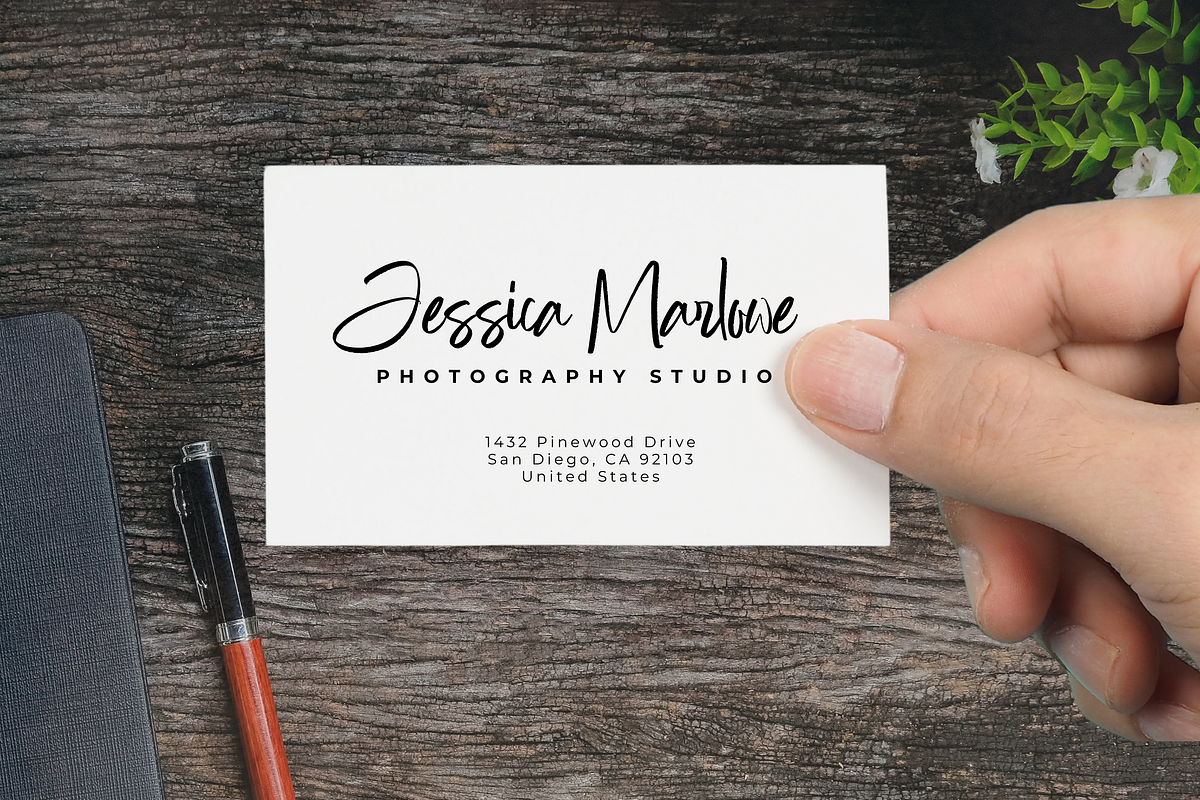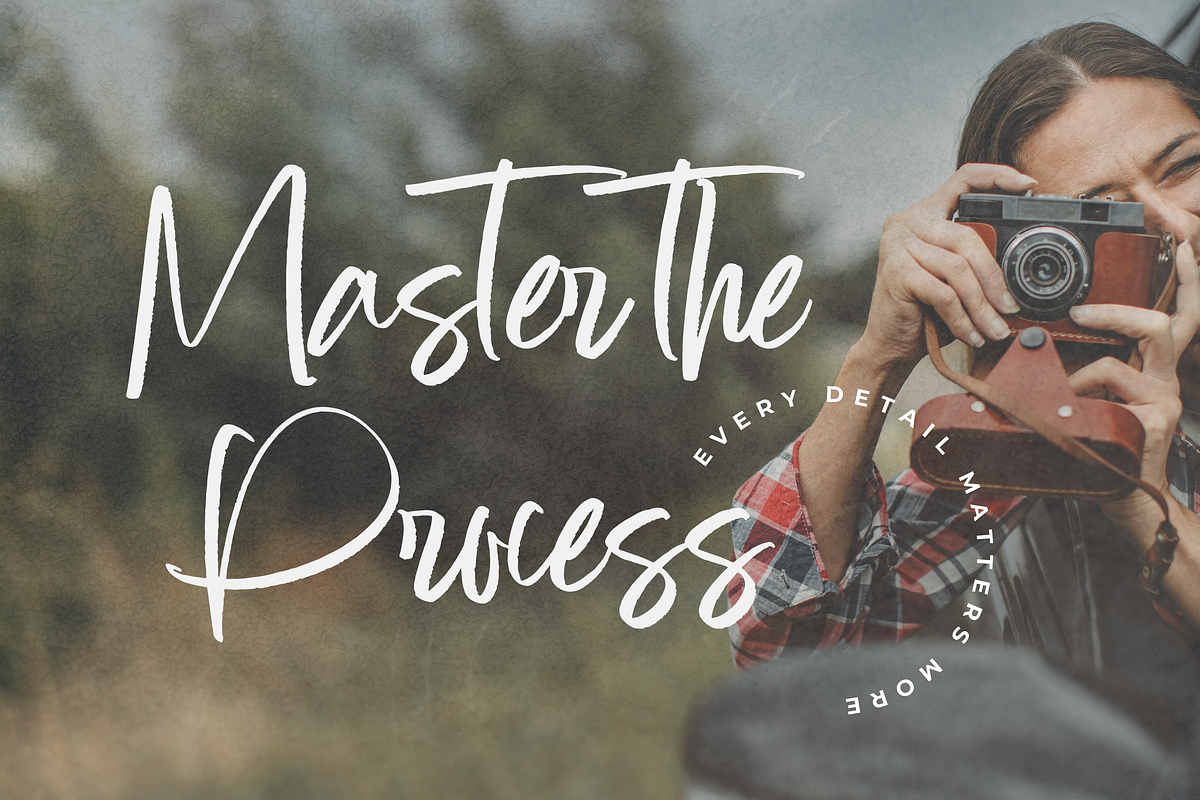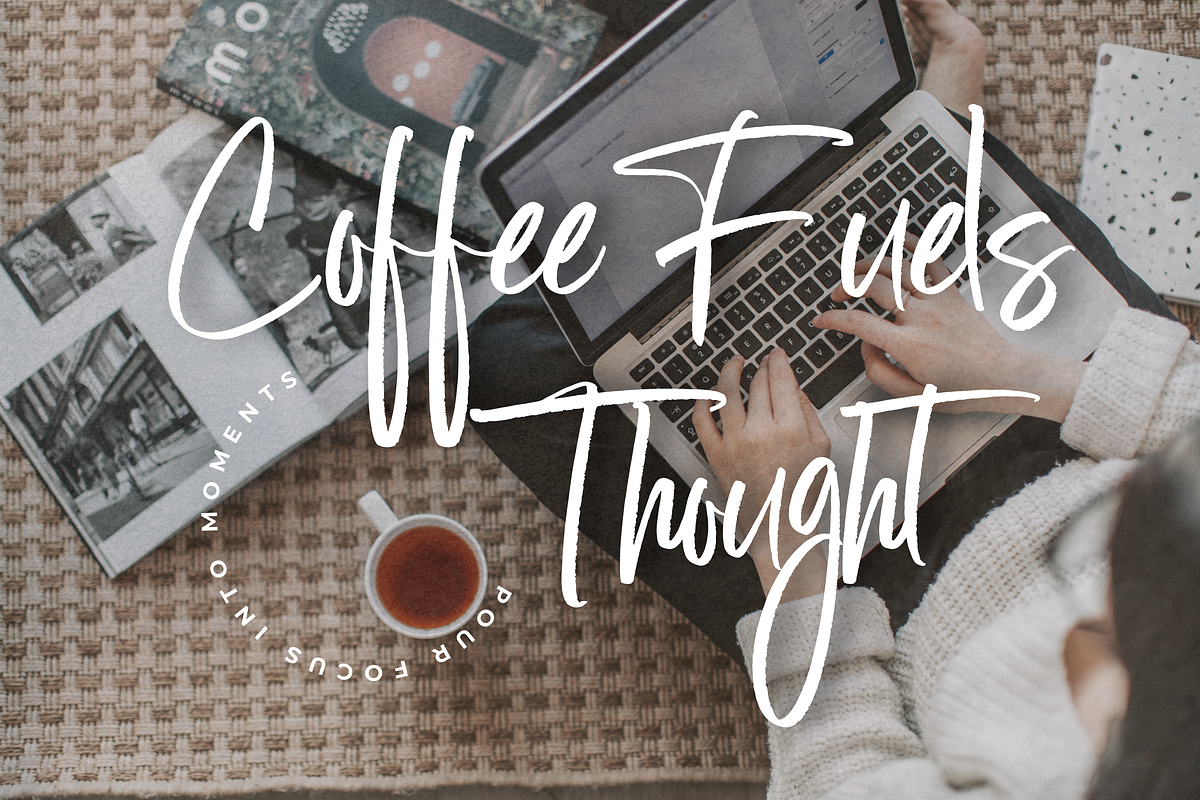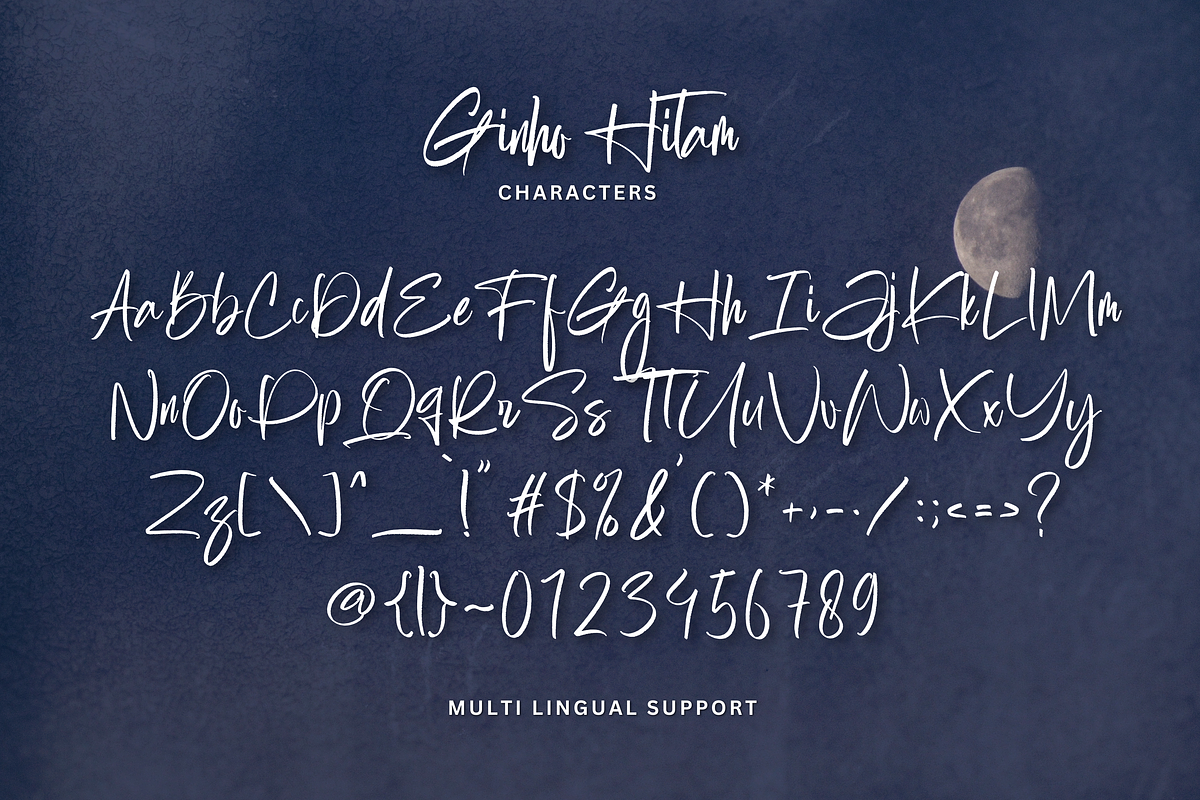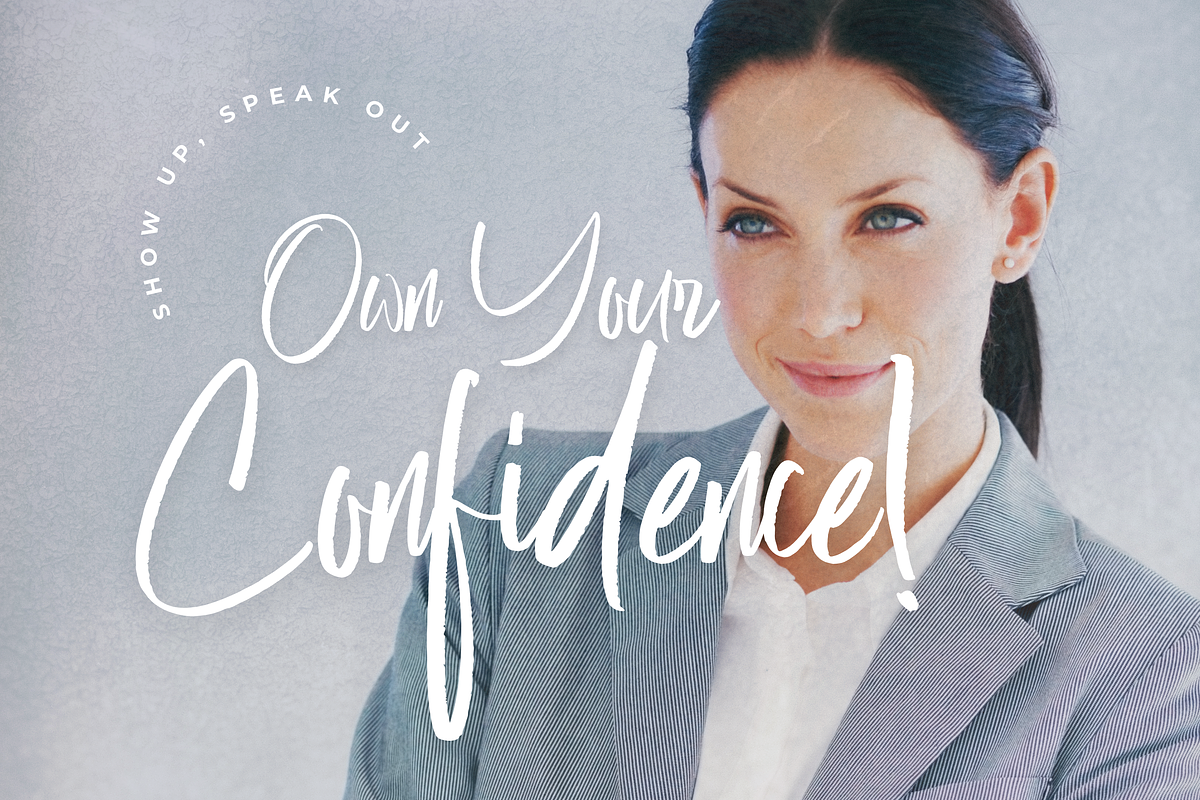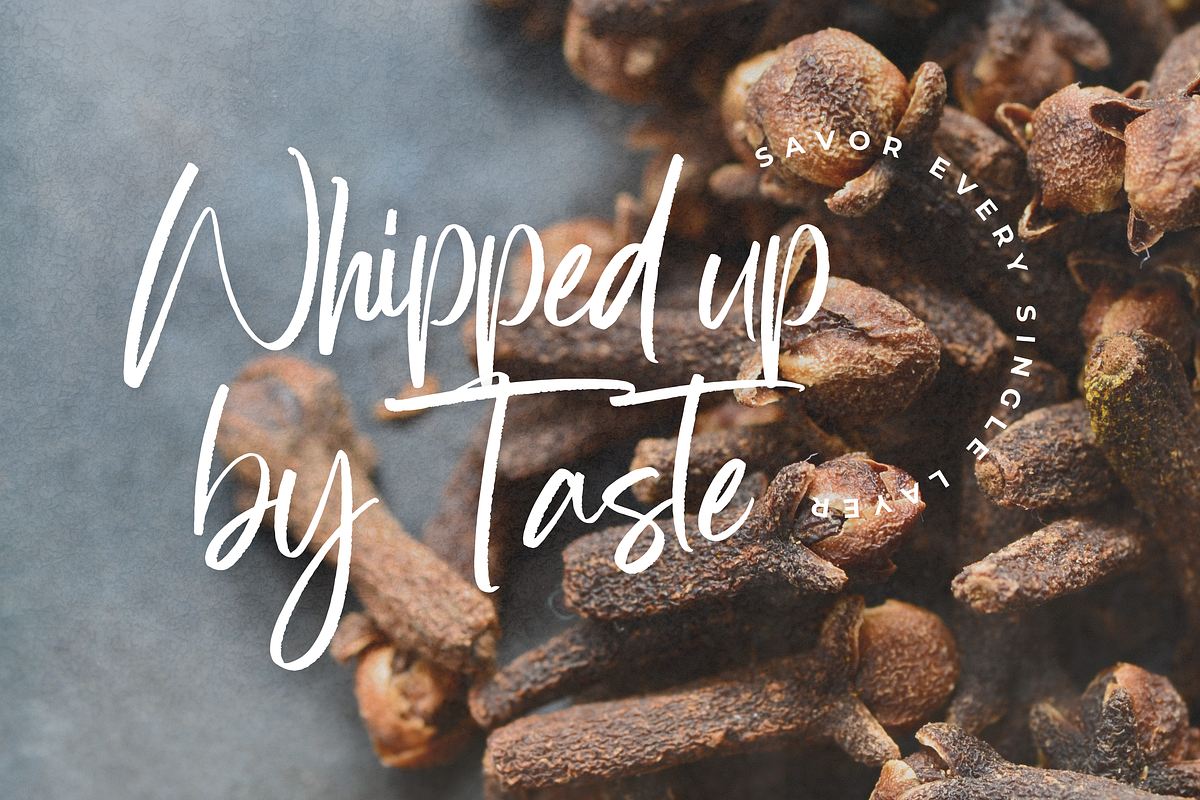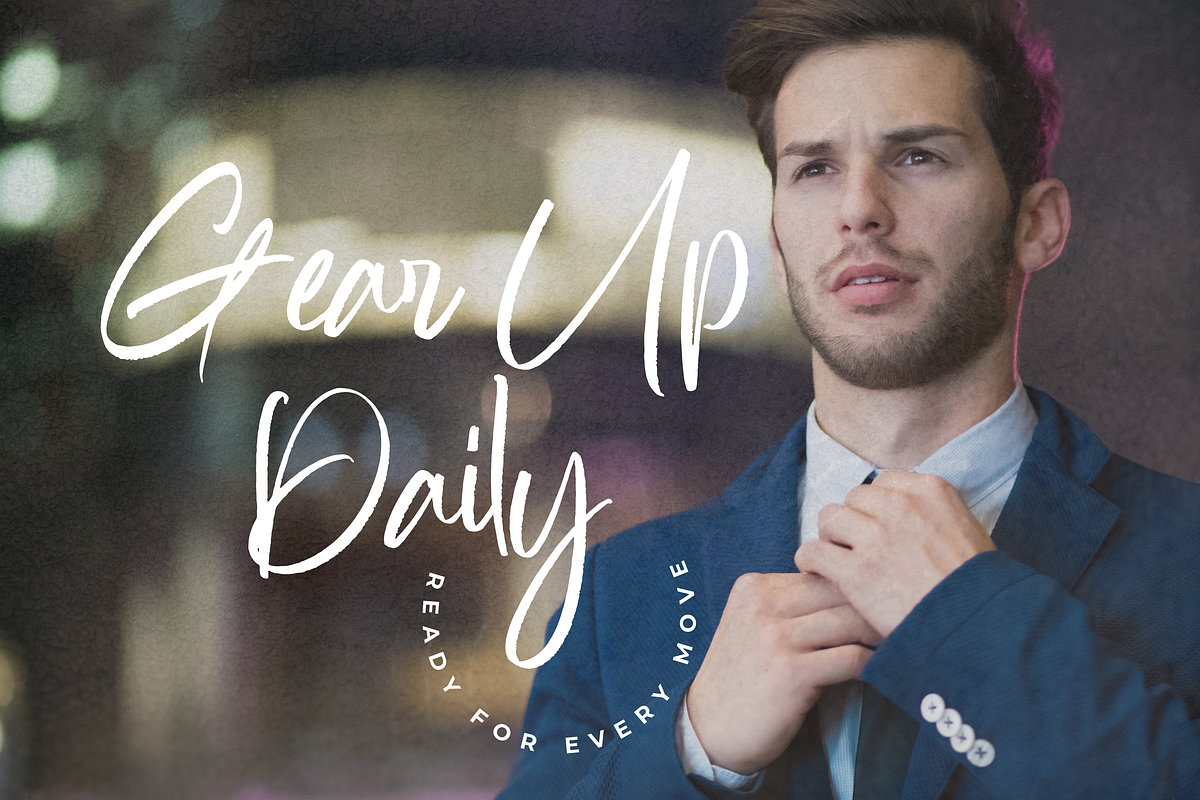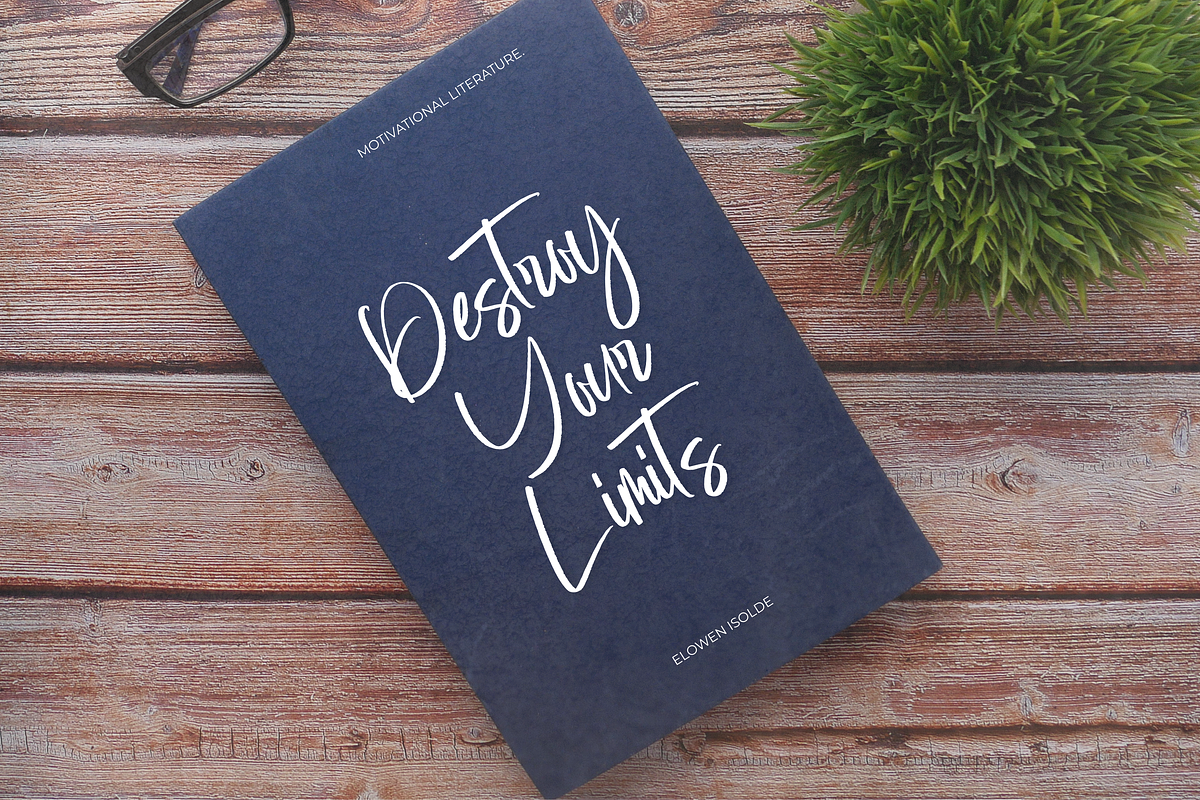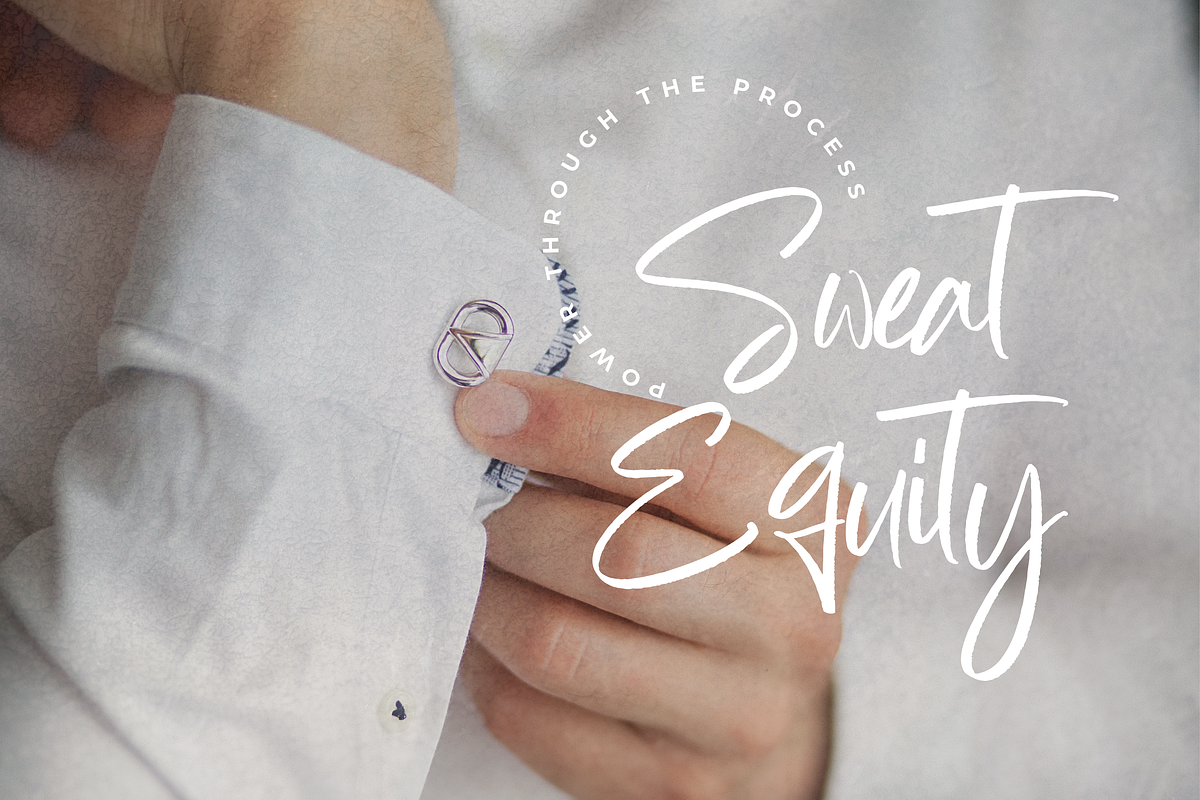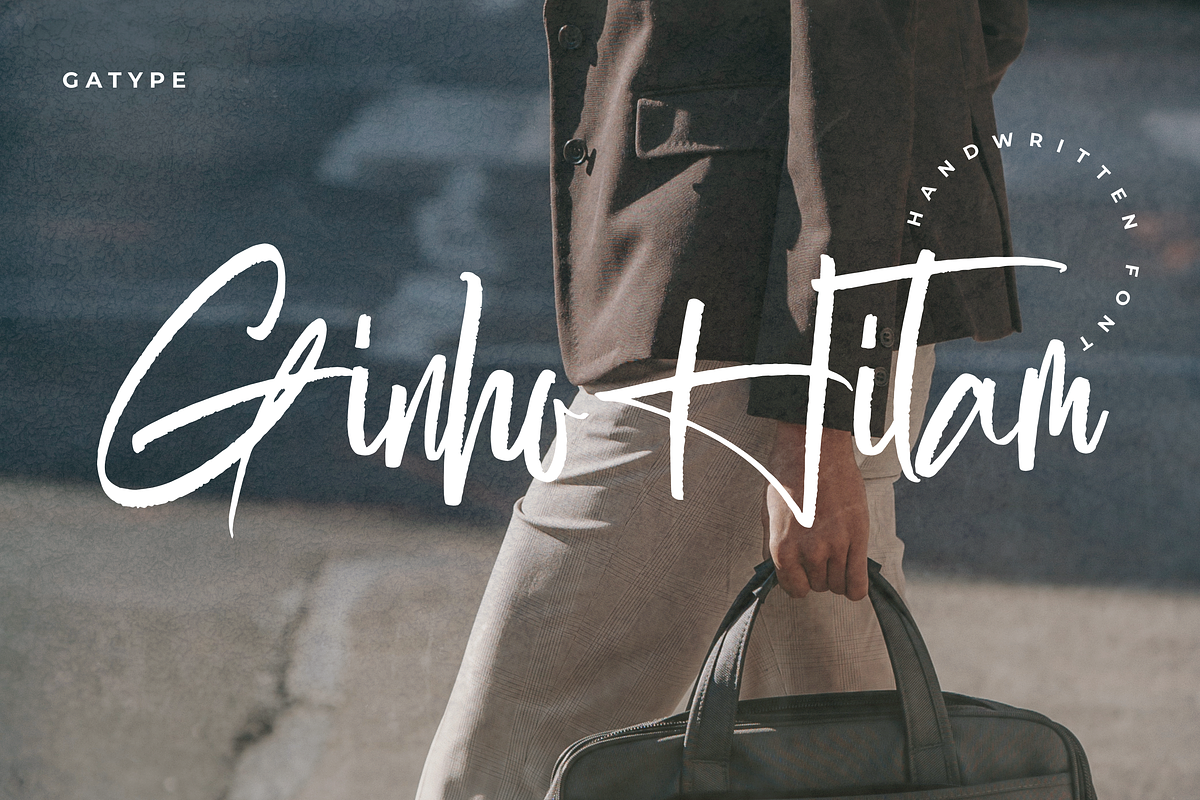
Ginho Hitam
Ginho Hitam – Where elegance meets ease. Ginho Hitam is a modern handwritten script that blends graceful strokes with laid-back charm. Whether for wedding stationery, logo designs, or lifestyle branding, this font adds a human touch that feels intimate and refined. Each curve and connection is thoughtfully crafted to bring flow, warmth, and personality into every project. Ginho Hitam comes in OTF and TTF formats, making it fully compatible with your favorite design software. Thank you for choosing Ginho Hitam. Your support means the world to independent creators. ✨